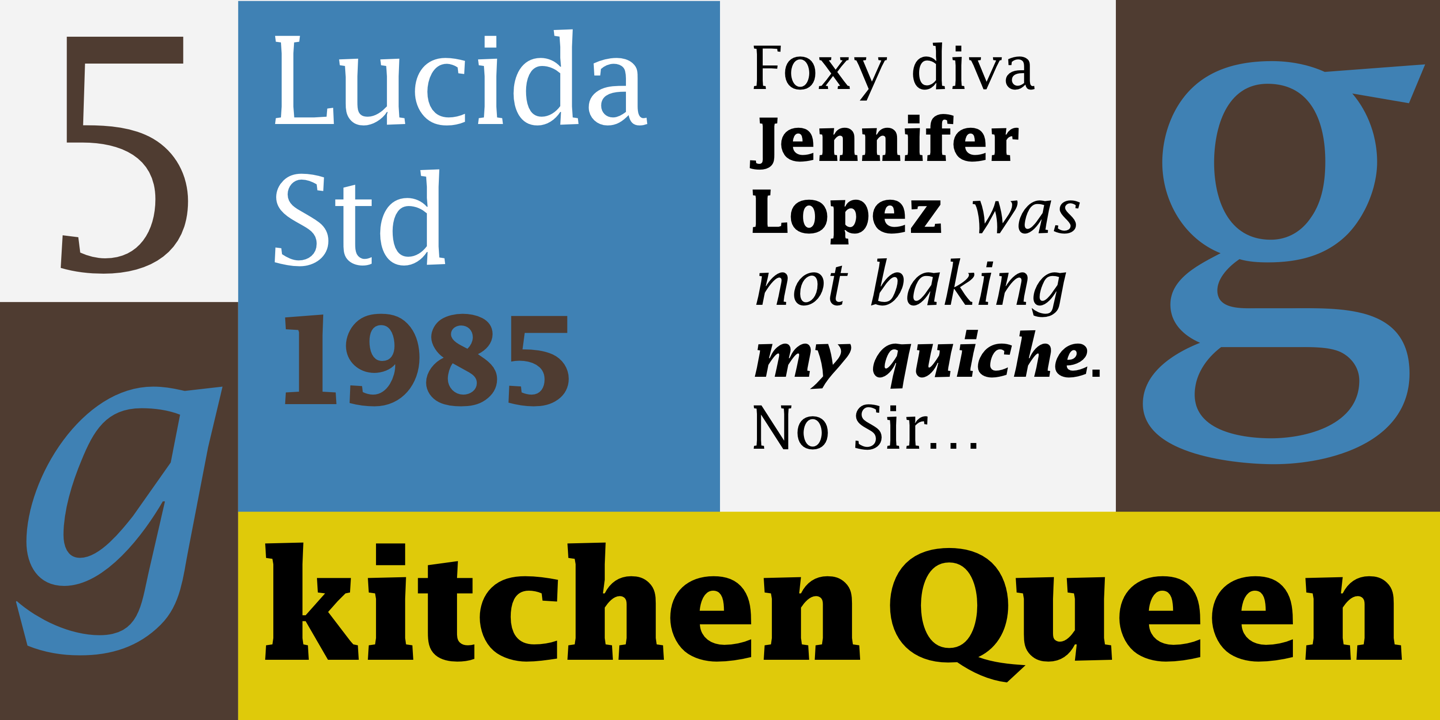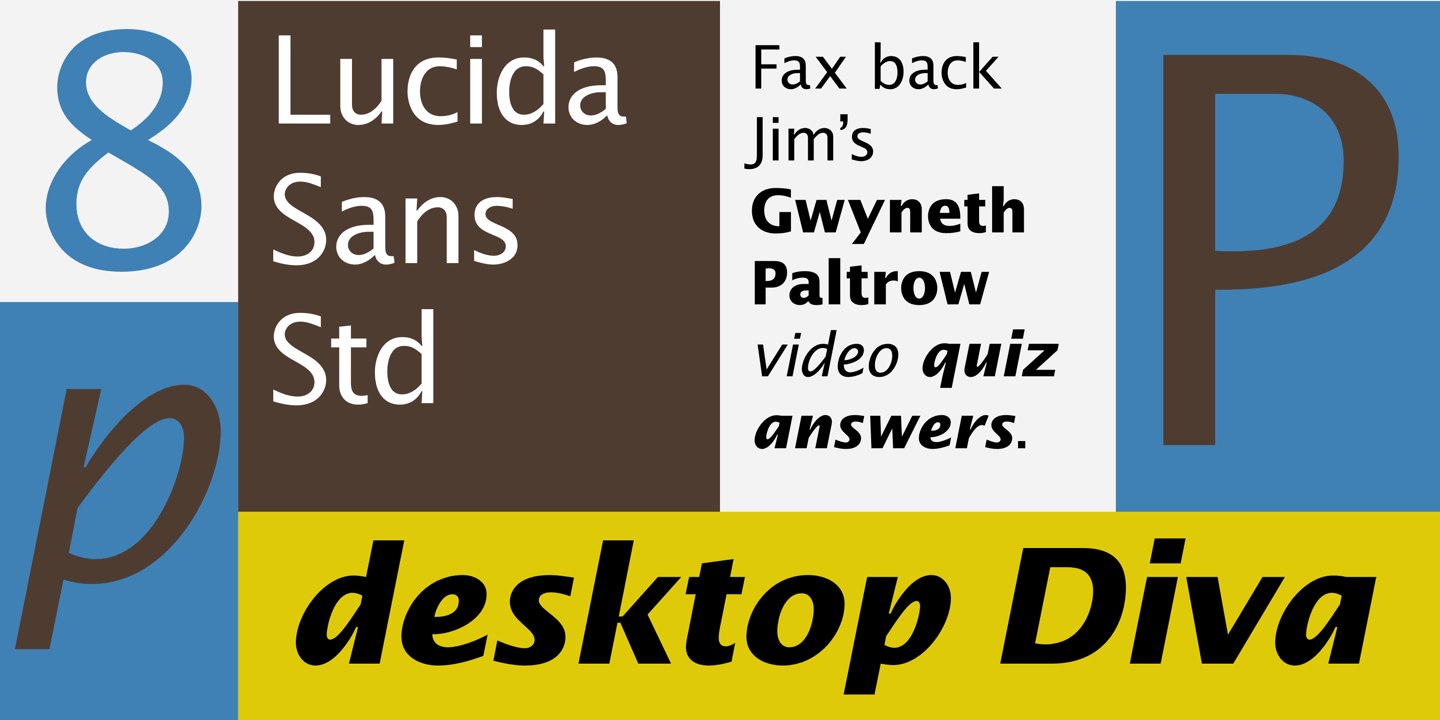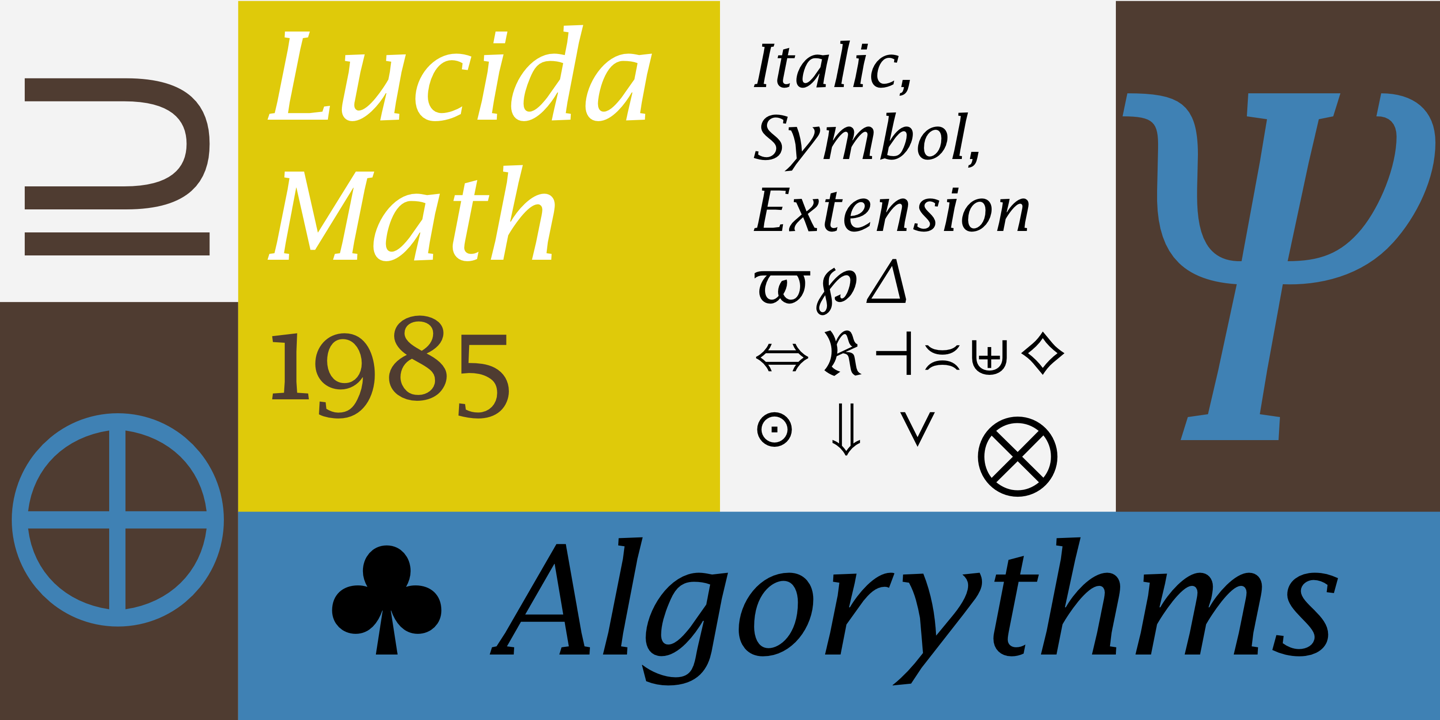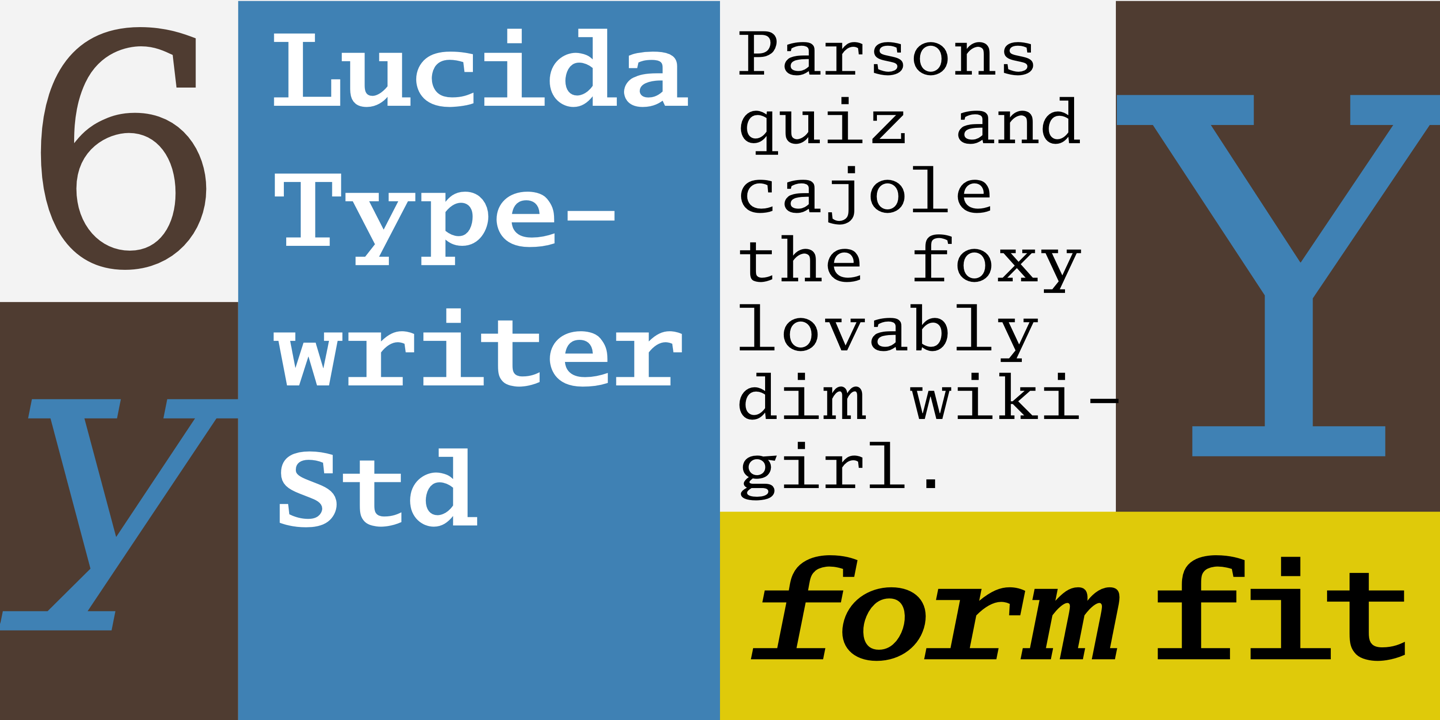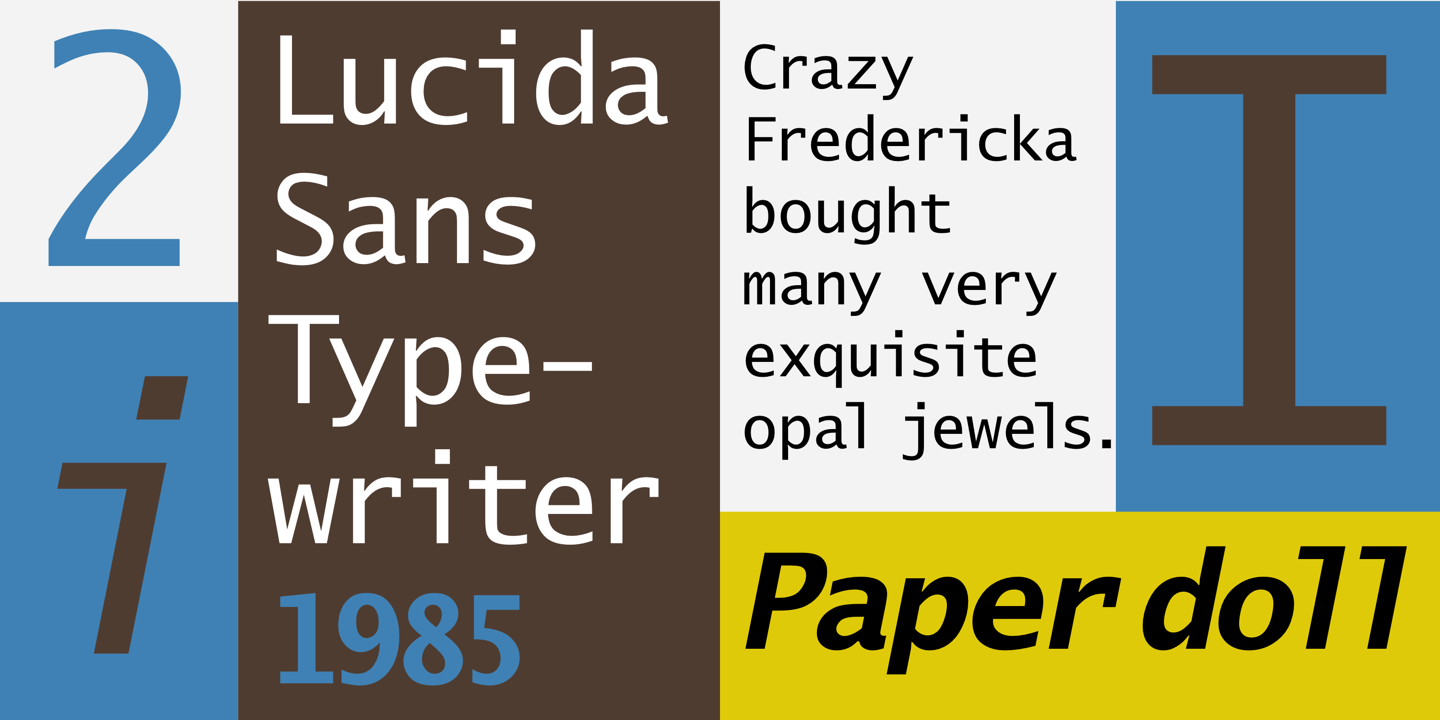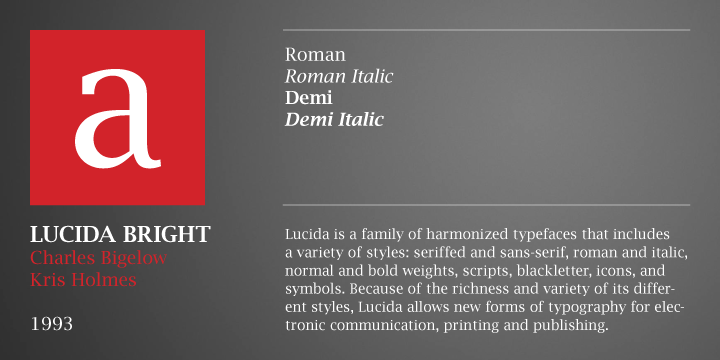
Charles Bigelow
Contemporary American type historian, professor and designer, recipient of a MacArthur Grant in 1982. Professor of Digital Typography at Stanford for several years. With partner Kris Holmes he runs the Bigelow & Holmes studio. Their most significant work is probably the Lucida font family, perhaps the first serious attempt to make type look good on low-resolution output. Lucida’s accompanying pi font, Wingdings, has long been included with Windows.
Underlings of Bigelow include Carol Twombly, David Siegel, and Tom Rickner.